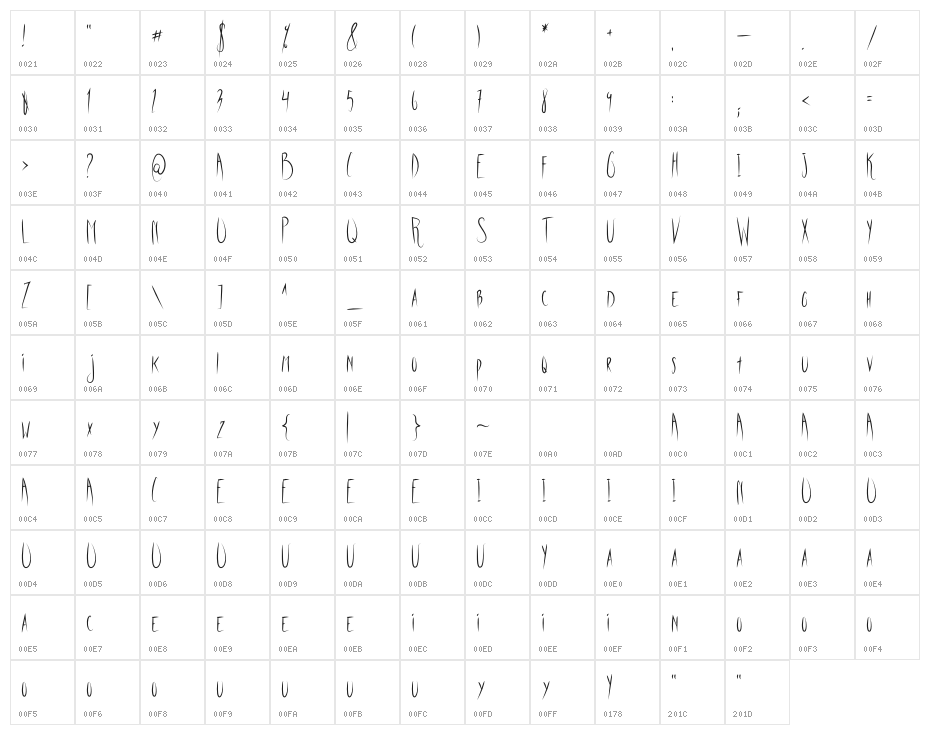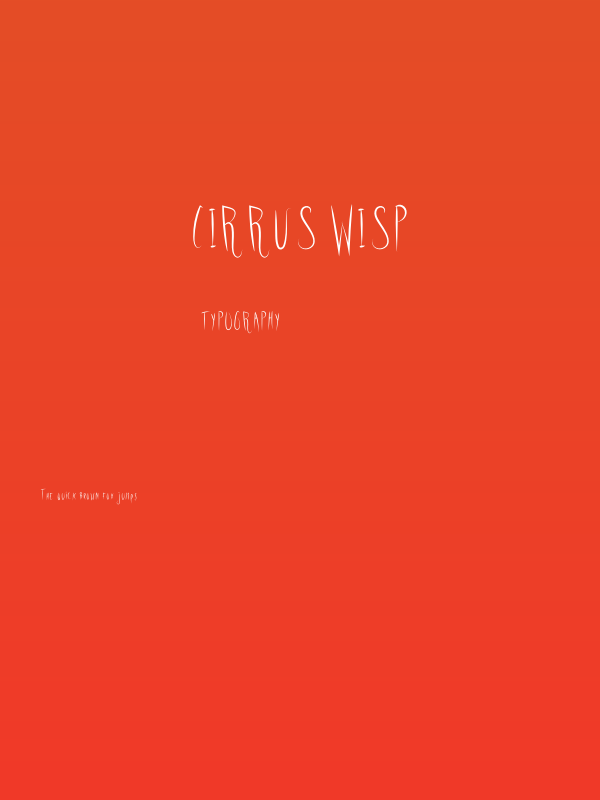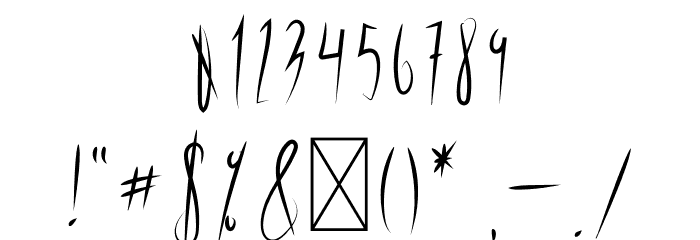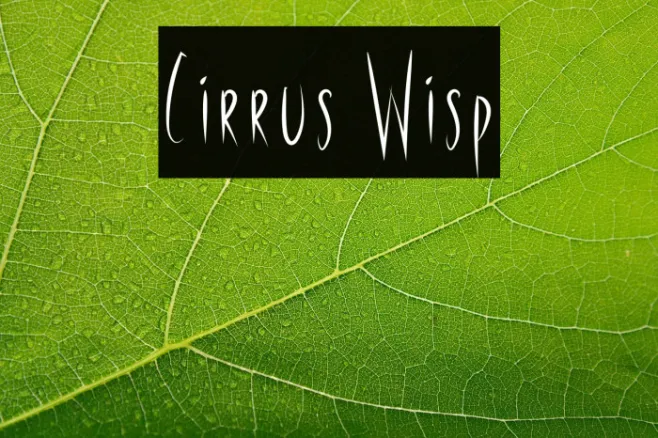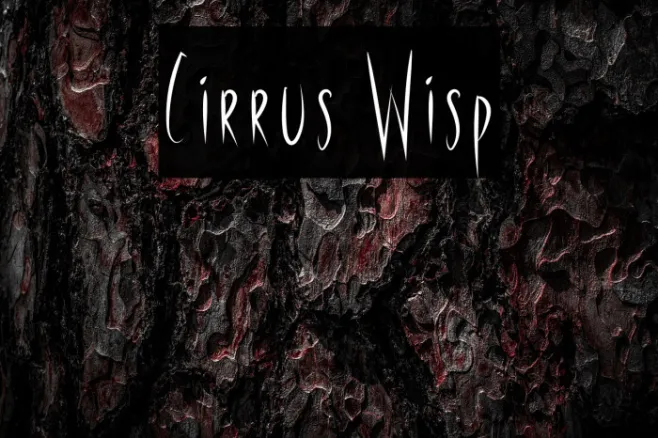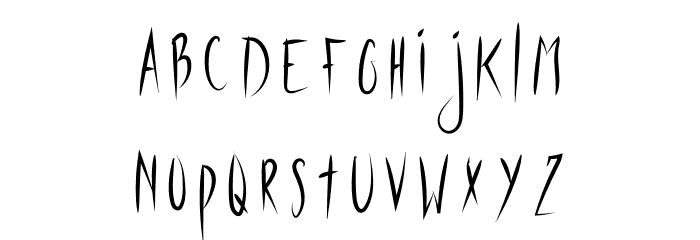
Cirrus Wisp Font
Cirrus Wisp Description
This font features a whimsical and airy design, characterized by tall, slender letters with a hand-drawn appearance. The strokes are uneven, giving it a playful and artistic feel. The uppercase letters are elongated, with some characters having unique, exaggerated curves and angles. The lowercase letters maintain the same whimsical style, with a slightly more compact form. Numbers and special characters follow the same design principles, ensuring a cohesive look across all elements. The overall style is both modern and artistic, making it suitable for creative projects.
| Overall Style | Modern, Artistic |
| Use Case | Headlines, Creative projects |
| Proposed Projects | Ideal for artistic projects, invitations, greeting cards, and creative branding. |